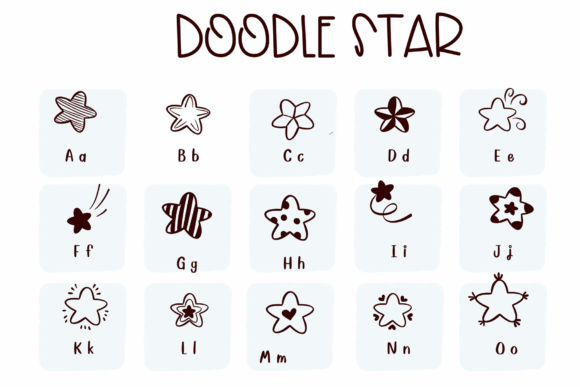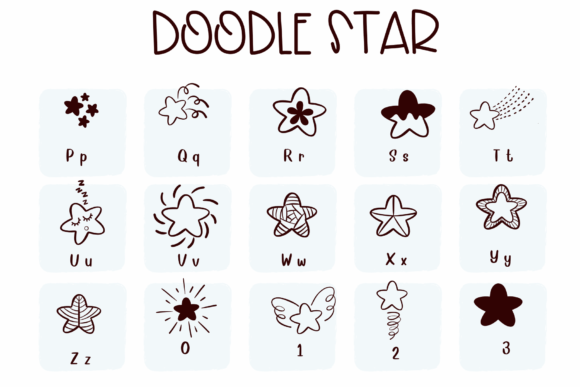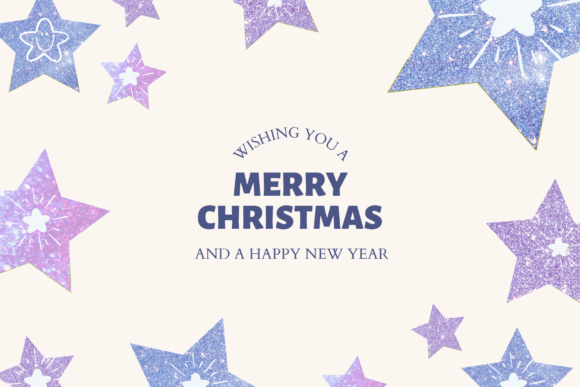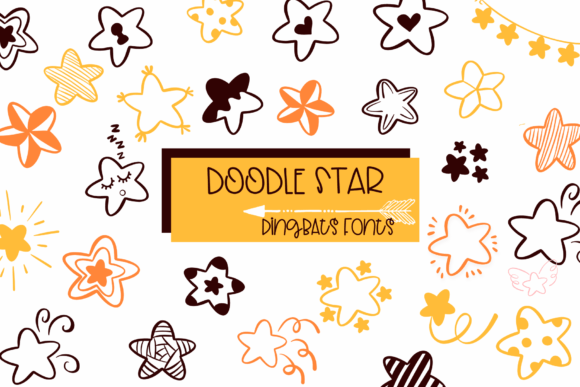
Introduction to Doodle Star Font
Doodle Star is a fun dingbat font filled with cute star designs.
Each character is a charming star shape, perfect for adding a playful touch to your projects .
Key Features of Doodle Star Font